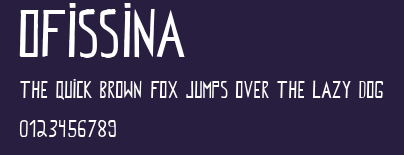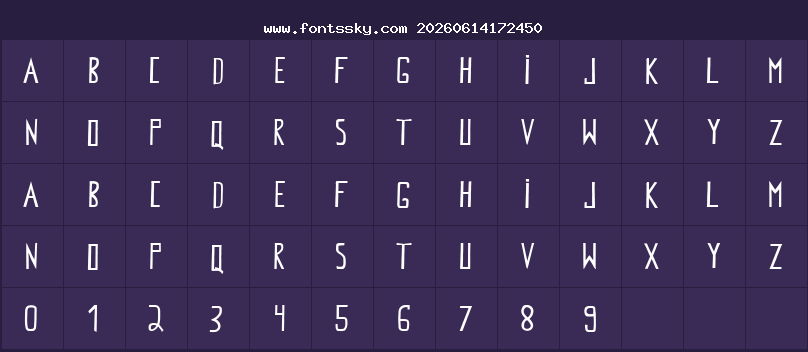
About Ofissina.ttf
Ofissina.ttf is a modern, elegant sans-serif font designed for ultimate readability and visual harmony. Perfect for branding, headlines, web design, and print materials.